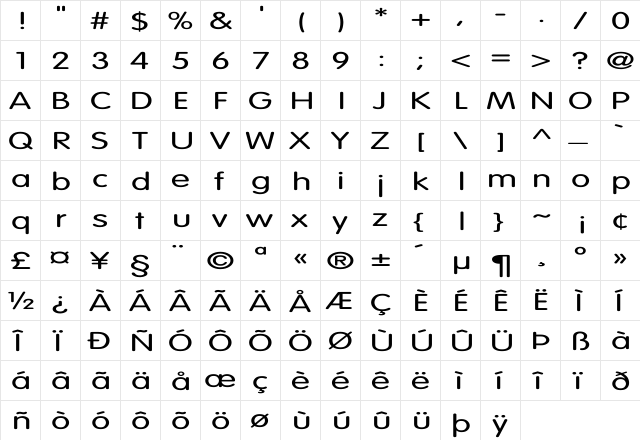
VAGRounded-Light Ex Regular Font Preview
VAGRounded-Light Ex Regular
Design Context for VAGRounded-Light Ex Typeface
VAGRounded-Light Ex uses gentle rounded endings to create a warm, inviting typographic personality — less corporate than geometric sans, more refined than playful display fonts. Its slender proportions lend an understated elegance to any composition.
A natural fit for tech startups, health and wellness brands, children's products, and friendly consumer apps.
Font Pairing: Pairs well with a rounded or humanist sans for body copy, maintaining the friendly tone without relying on VAGRounded-Light Ex to carry extended reading.
Pro Tip: Pair VAGRounded-Light Ex with a geometric sans for a balanced system — the rounded softness works as a warm counterpoint to harder-edged companions.